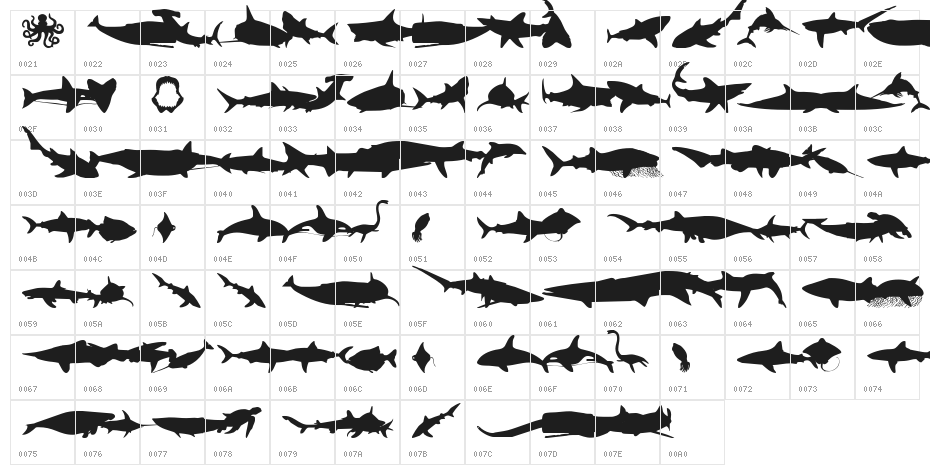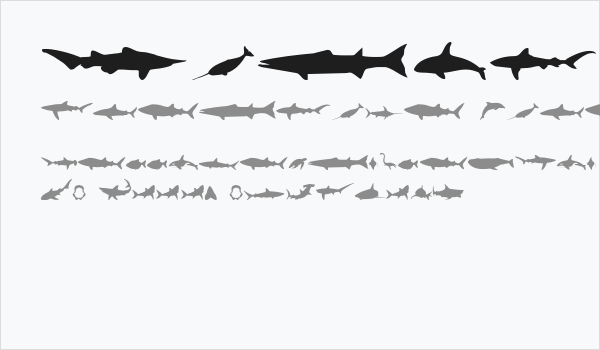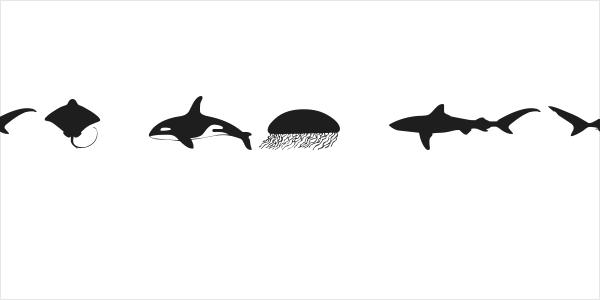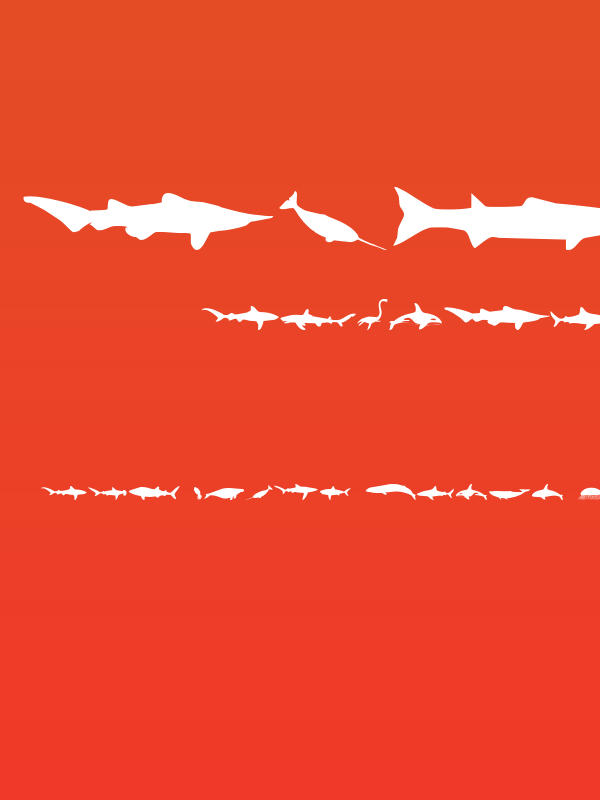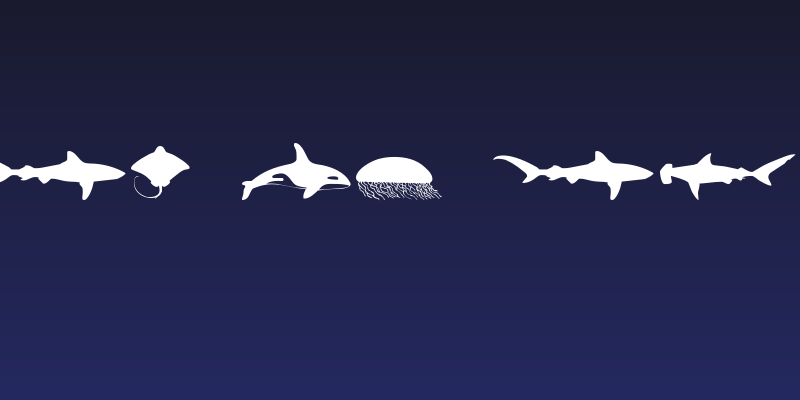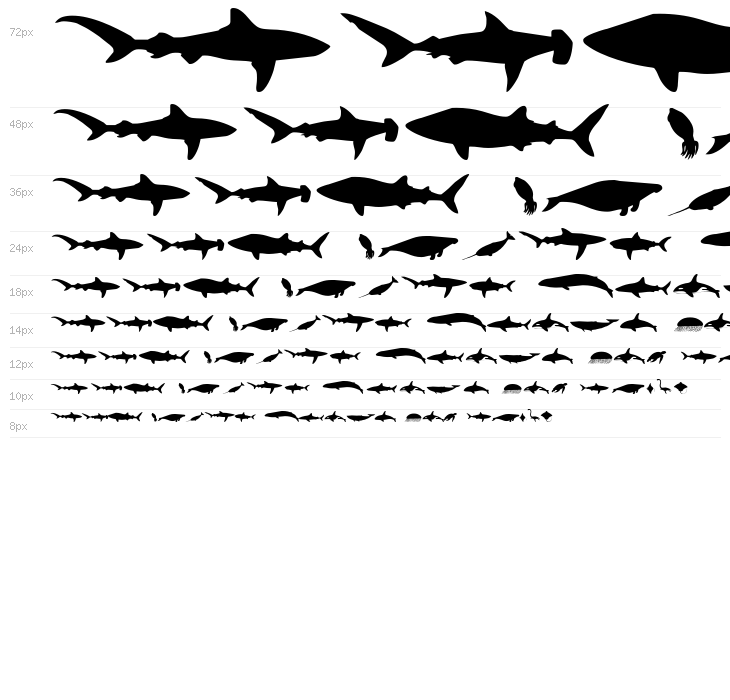
Giants of the Sea Font
Giants of the Sea Description
A decorative display font composed of silhouettes of various large sea creatures, including sharks, whales, rays, and other marine animals, each representing a different character. The glyphs are highly illustrative and lack traditional typographic features such as serifs or consistent stroke width.
| Overall Style | Decorative, Playful, Thematic |
| Use Case | Headlines, Logos, Themed graphics, Posters |
| Proposed Projects | ChildrenΓ’β¬β’s books, educational posters, aquarium branding, marine-themed event materials, creative titles. |